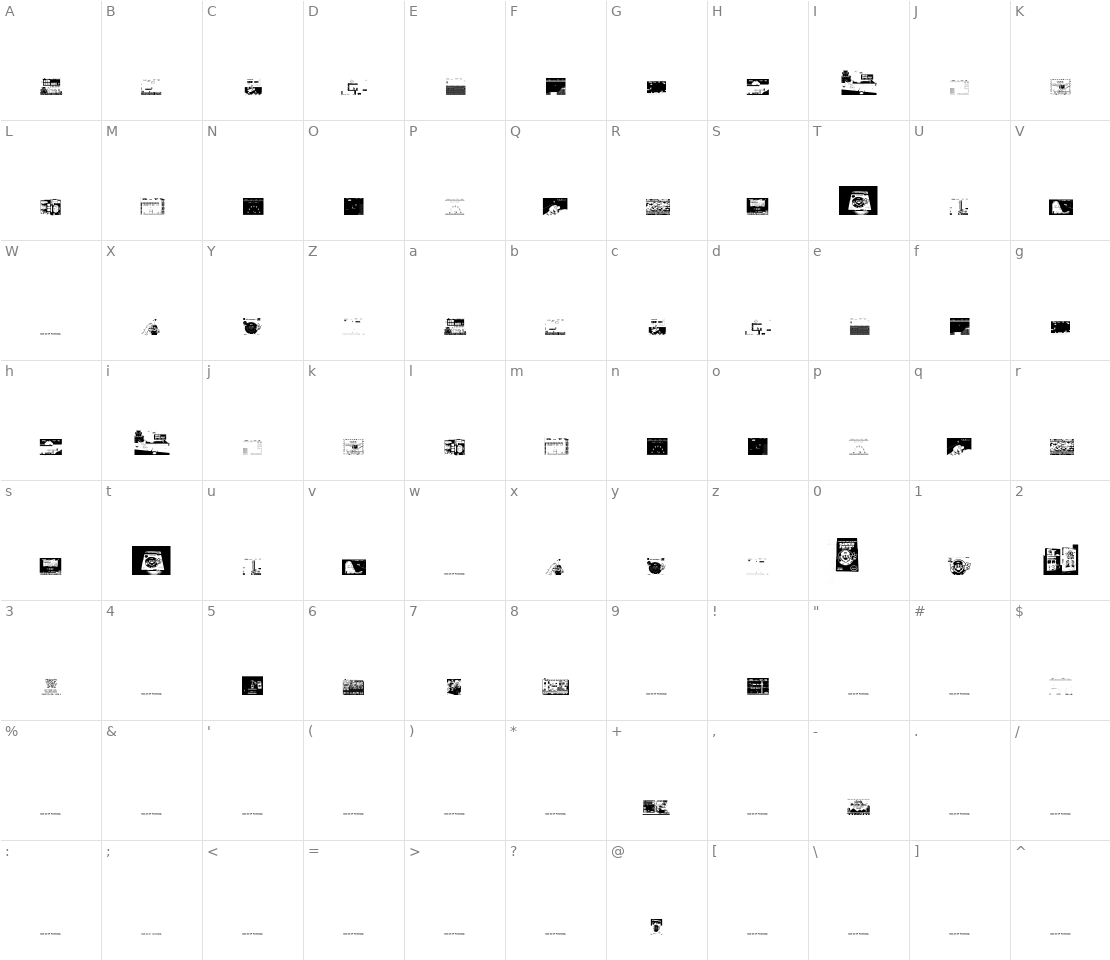
Super Mario Lost!
Super Mario Lost! is a pixel-based novelty font from Font Bureau that recreates the iconic sprite aesthetics of classic Nintendo-era Mario games. Rather than traditional letterforms, it leans heavily into the visual language of 8-bit and 16-bit gaming, with characters and icons that feel lifted straight from a cartridge. Built for fan projects, gaming content, and retro-themed design where instant Nintendo nostalgia is the whole point.